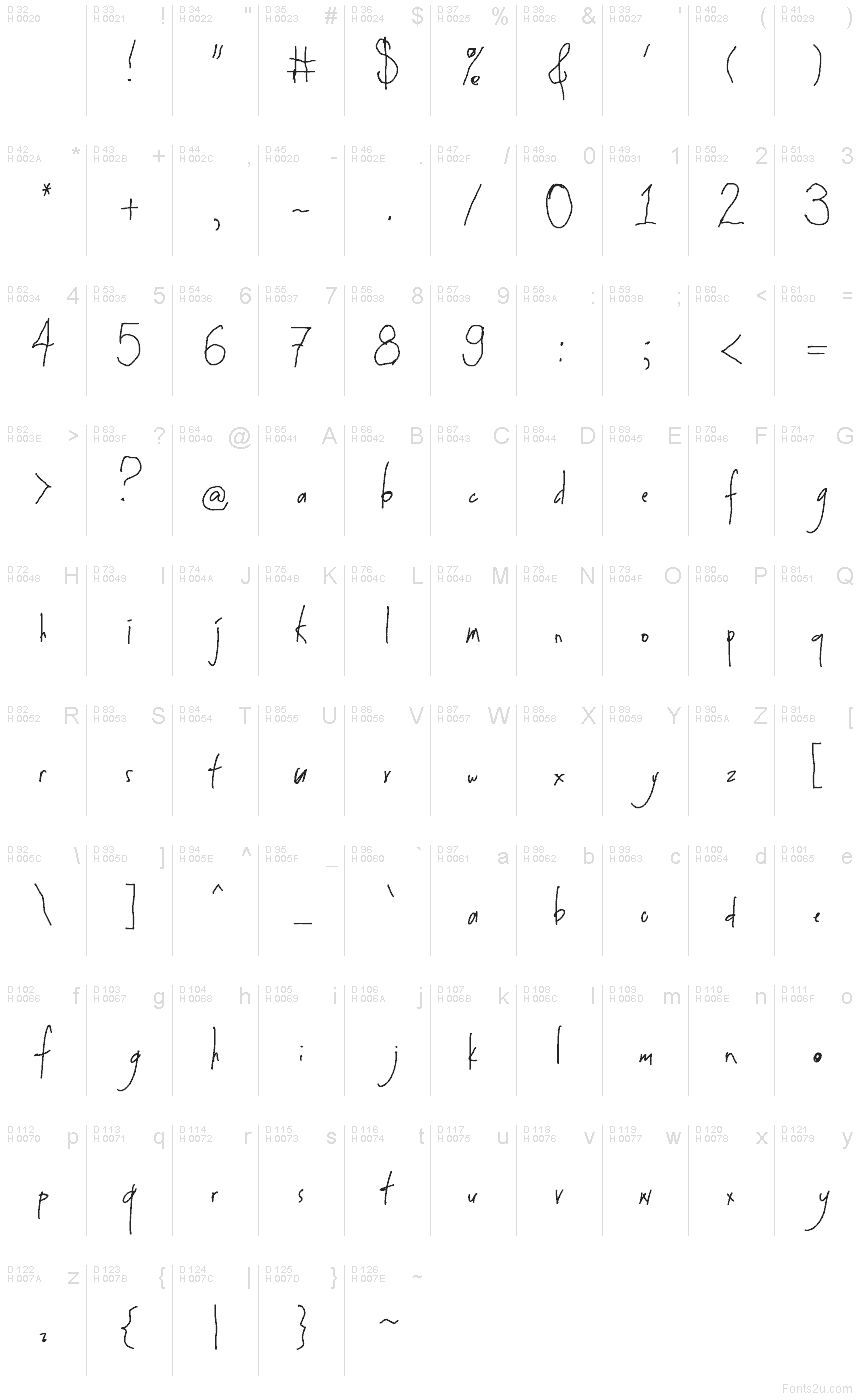
Arkinthor Hands Alternates
Arkinthor Hands Alternates font by The Branded Quotes is a sophisticated handwritten typeface. It features an organic flow and personal touch with artistic character. With natural currents and authentic vibes, it introduces a modern solution for editorial applications focused on style.
The light font is exceptional for product packaging, titling, branding, advertisements, book covers, SNS posts (Instagram & Pinterest), wedding invitations and stationery. Enjoy Arkinthor Hands in magazine layouts and typography for book interiors where alternative fonts can be used mostly in headers or chapter titles.